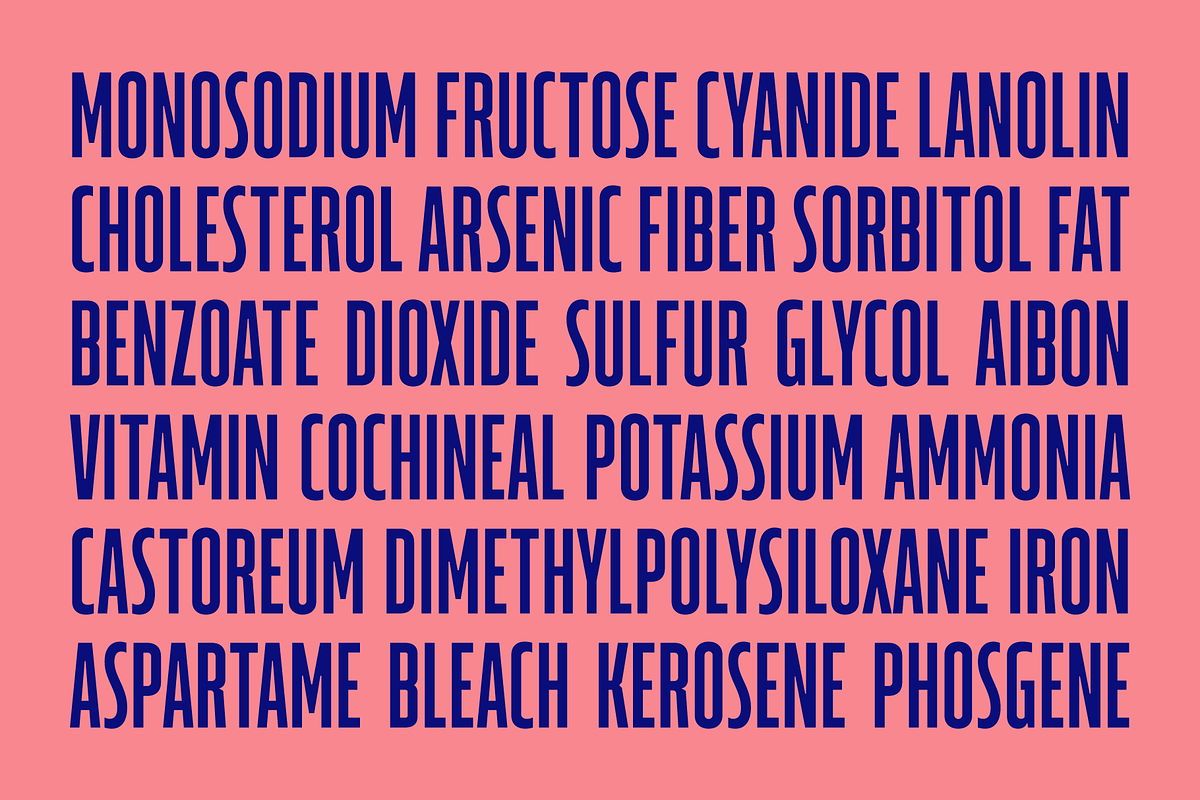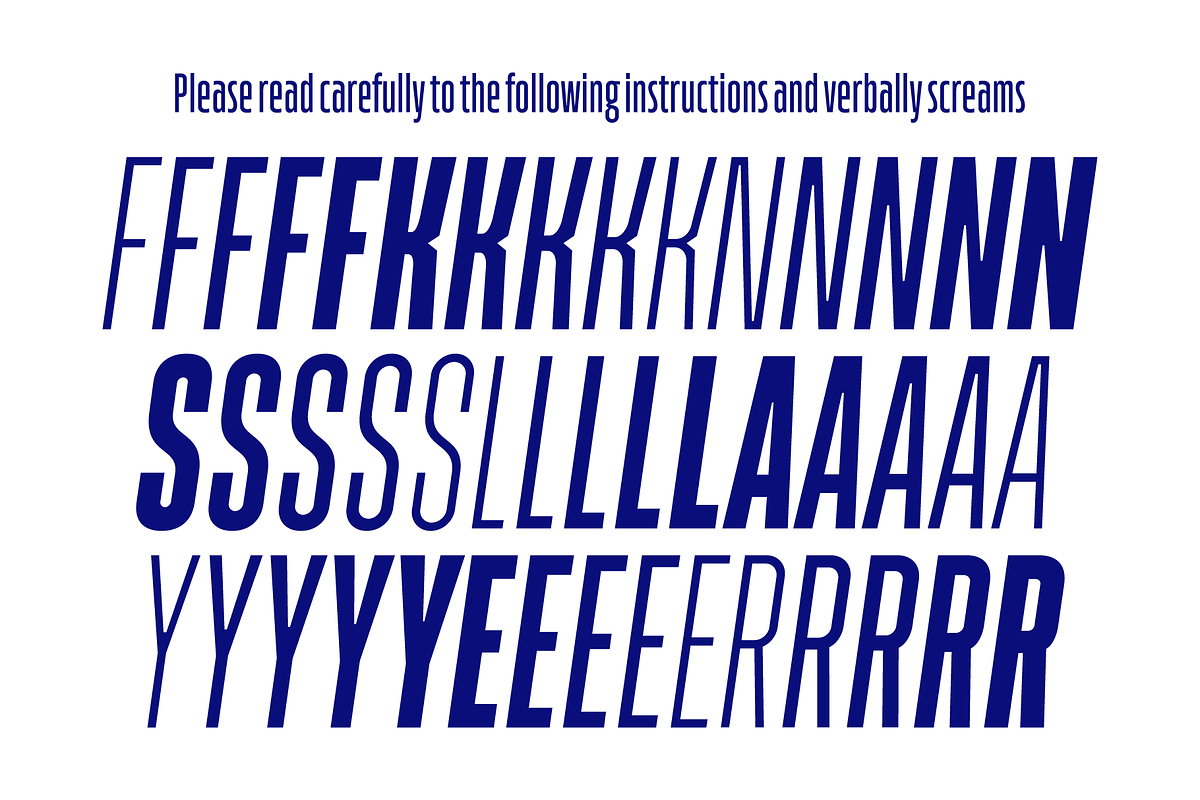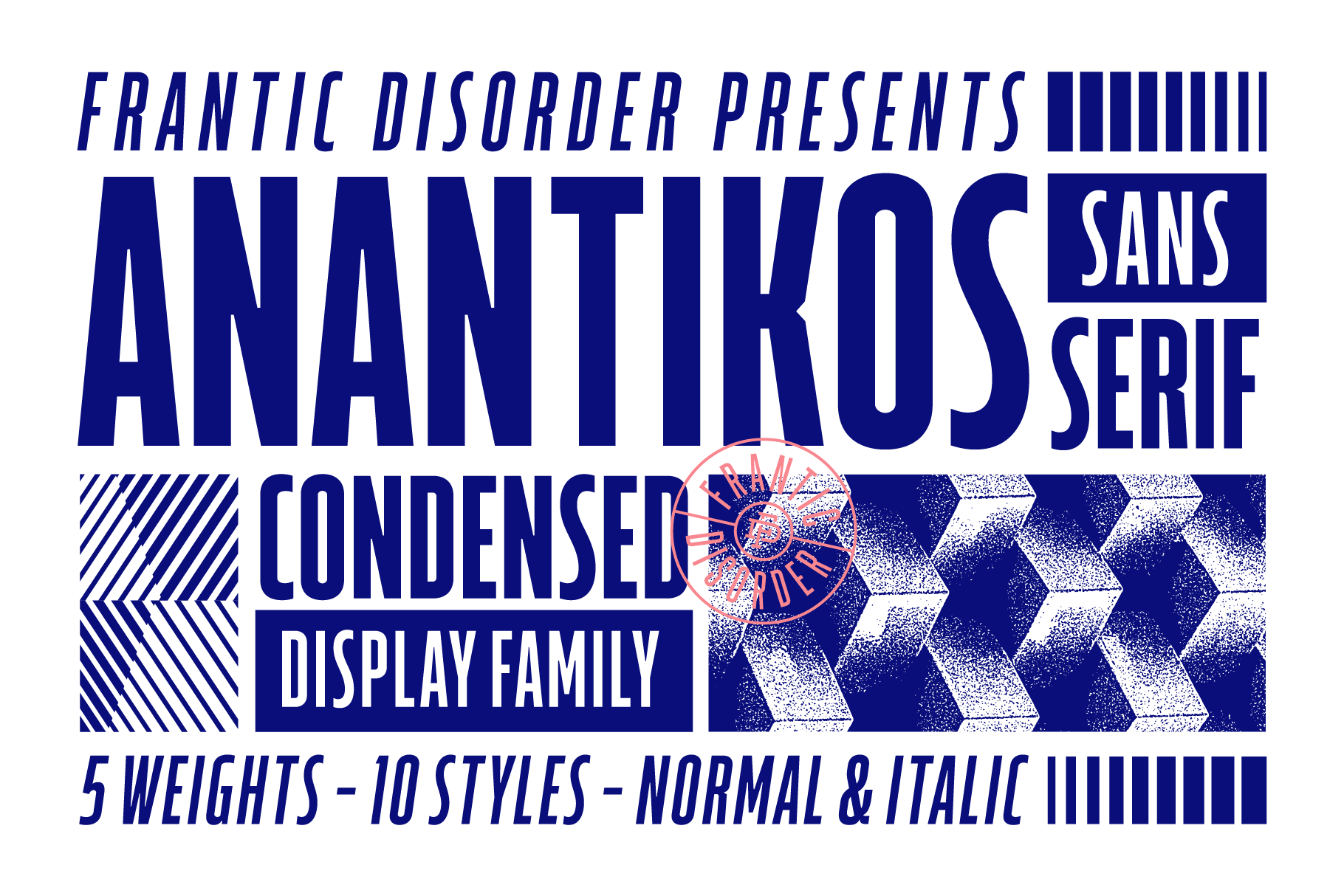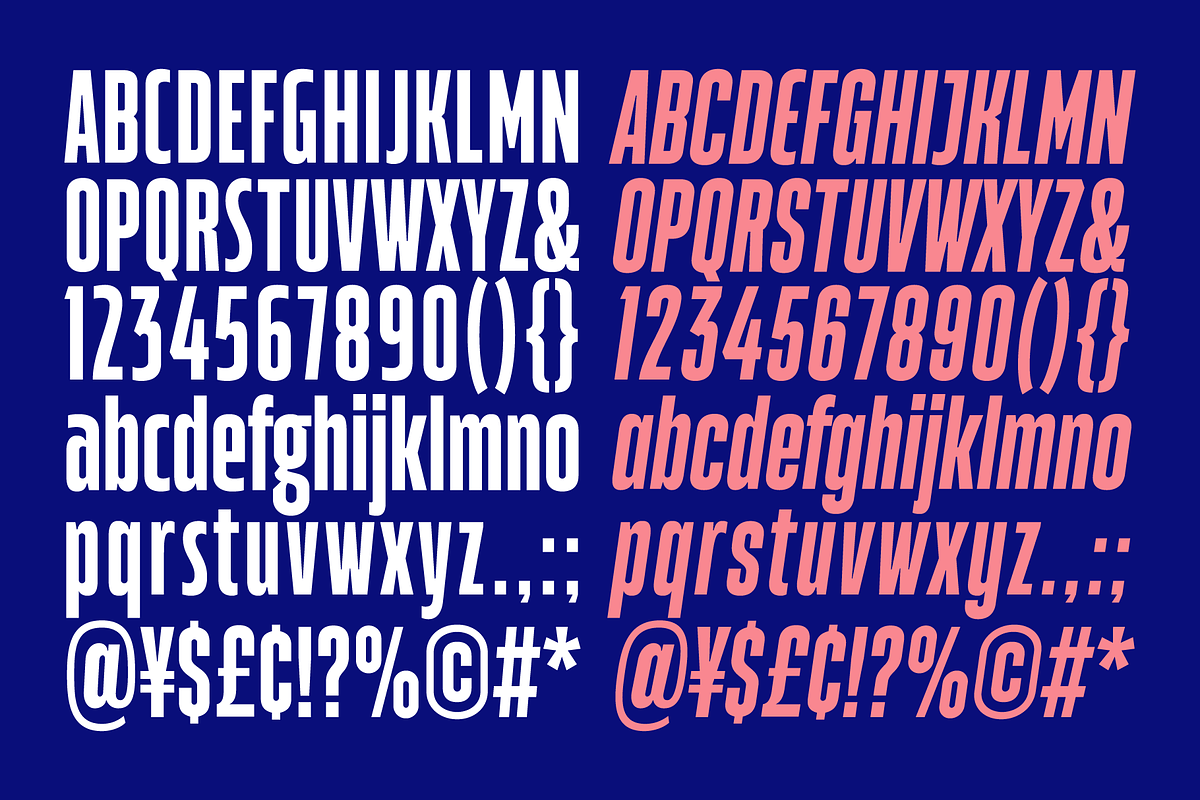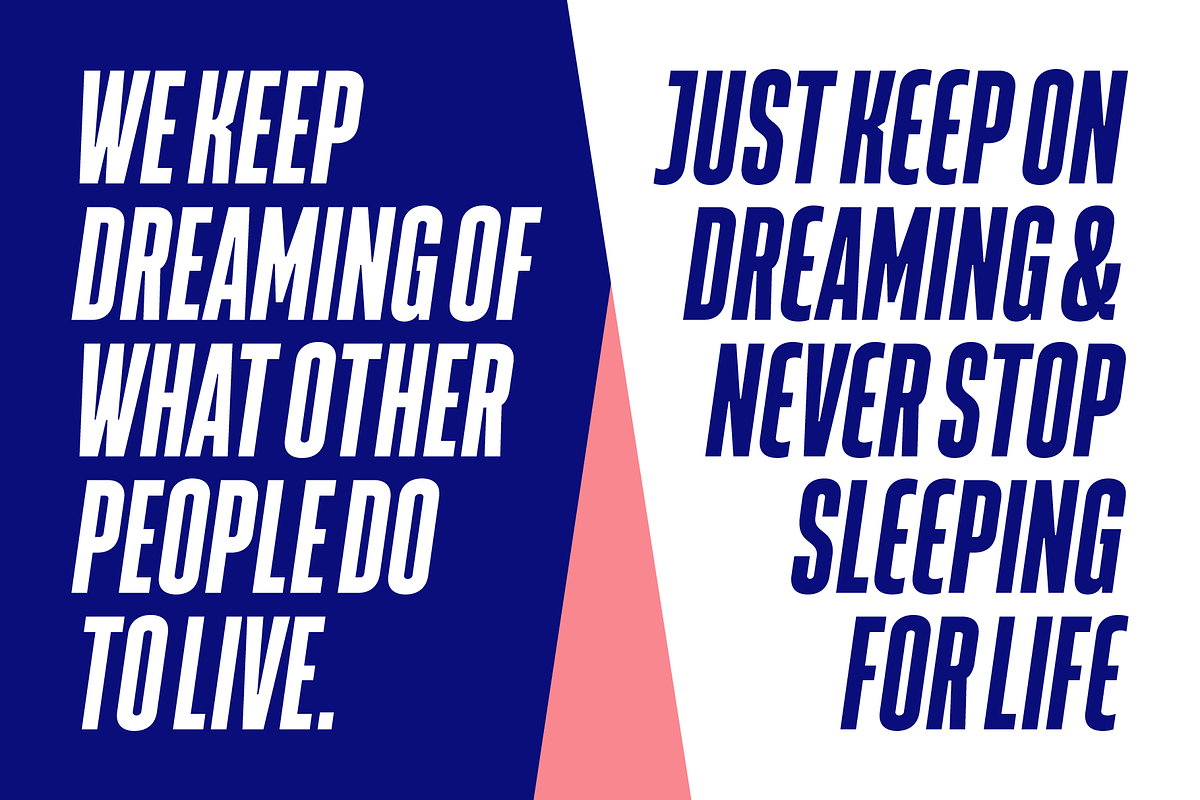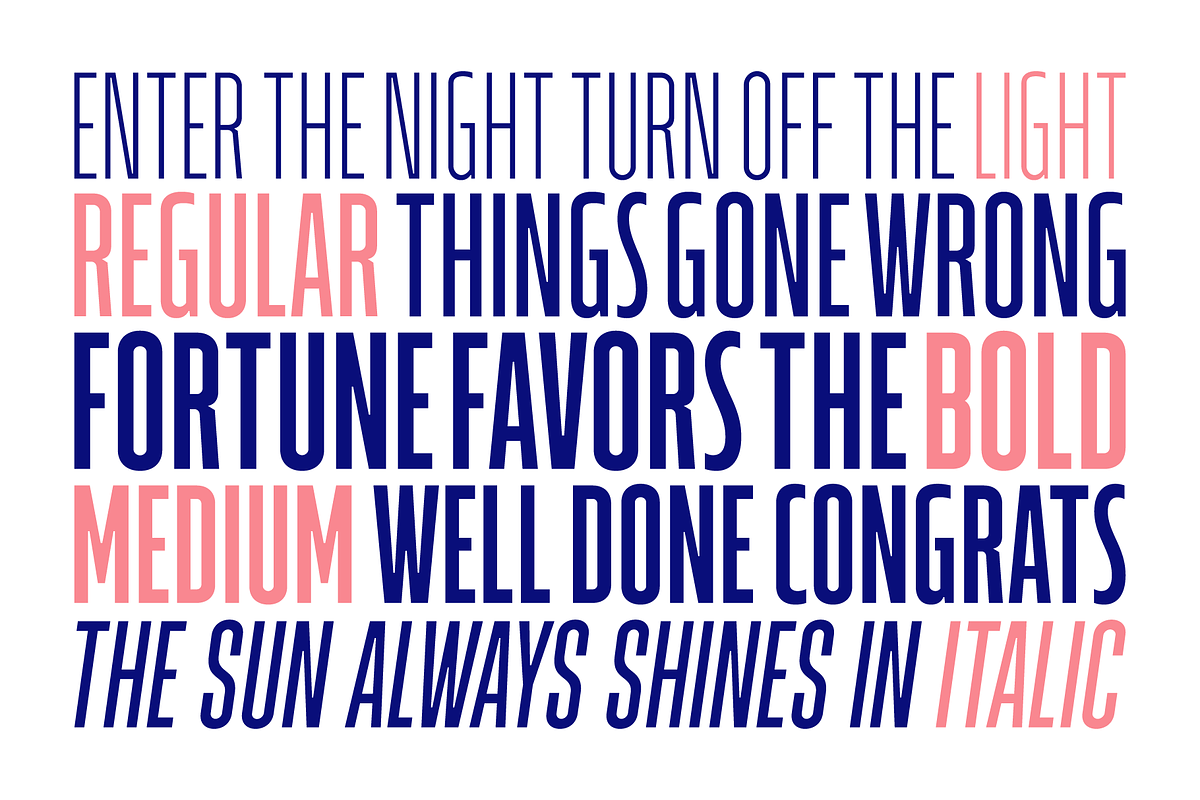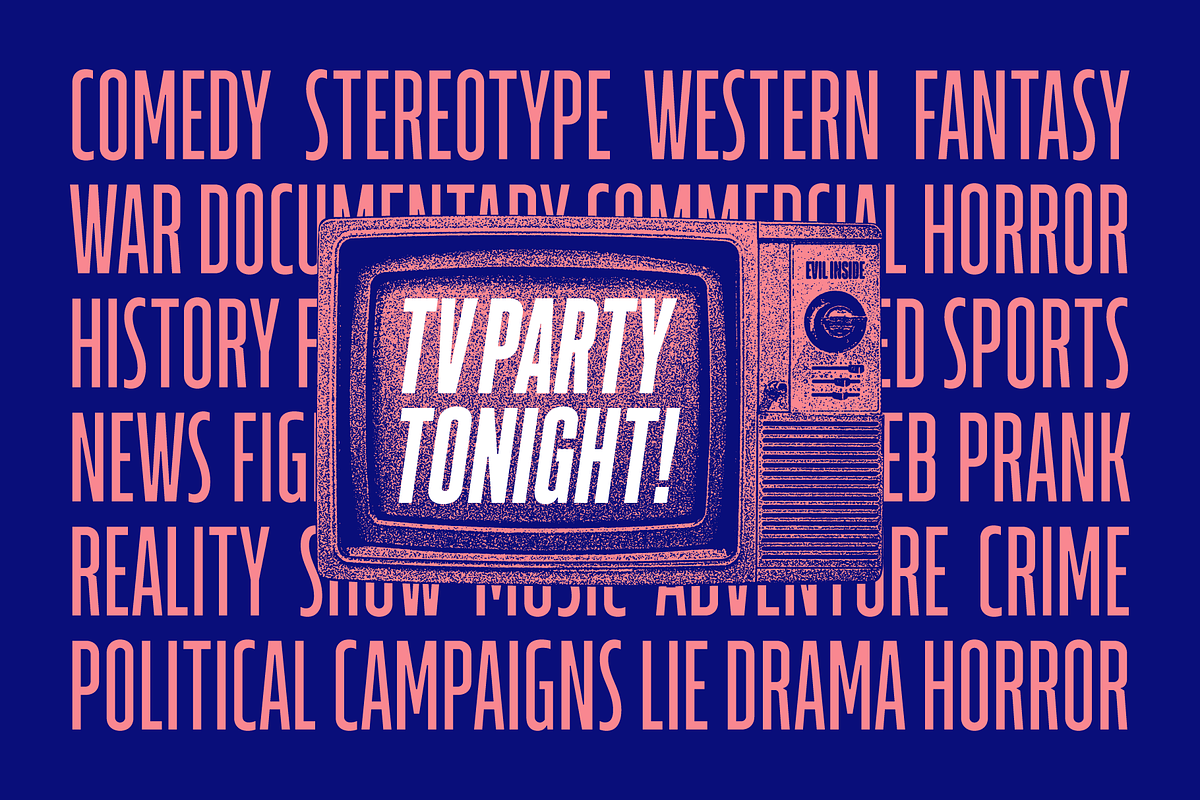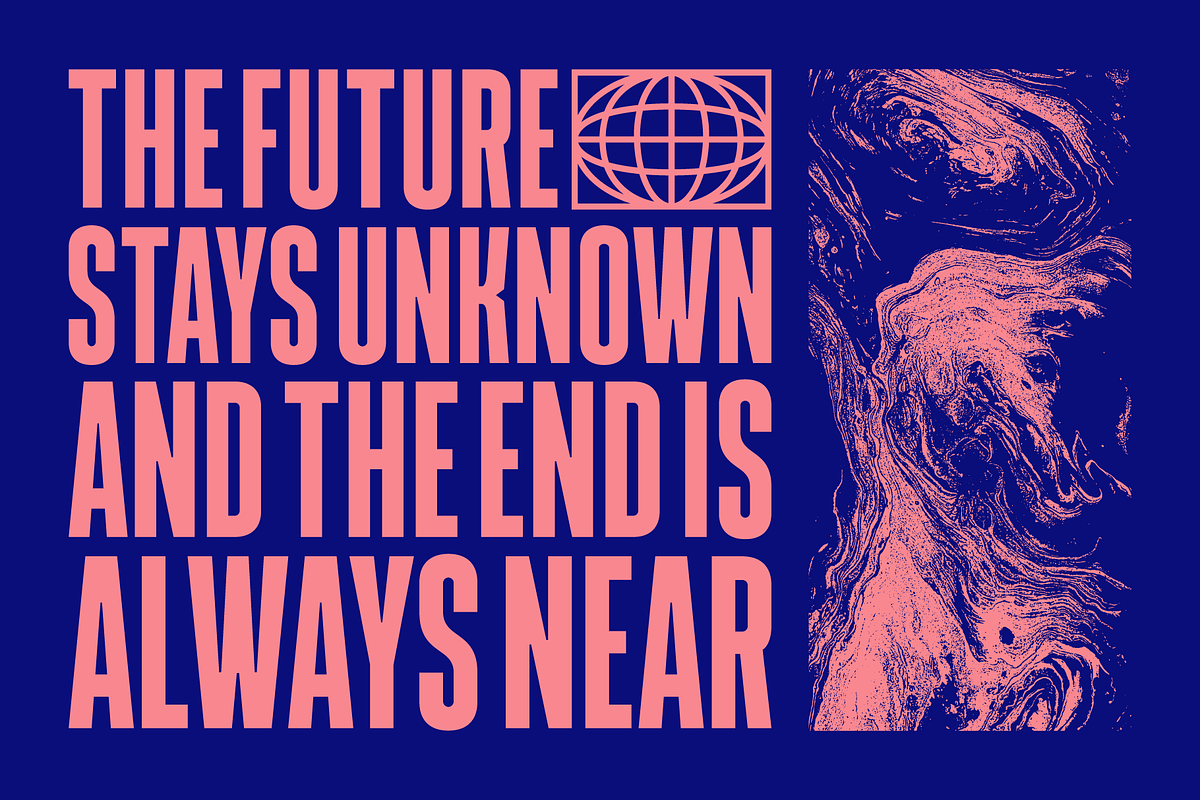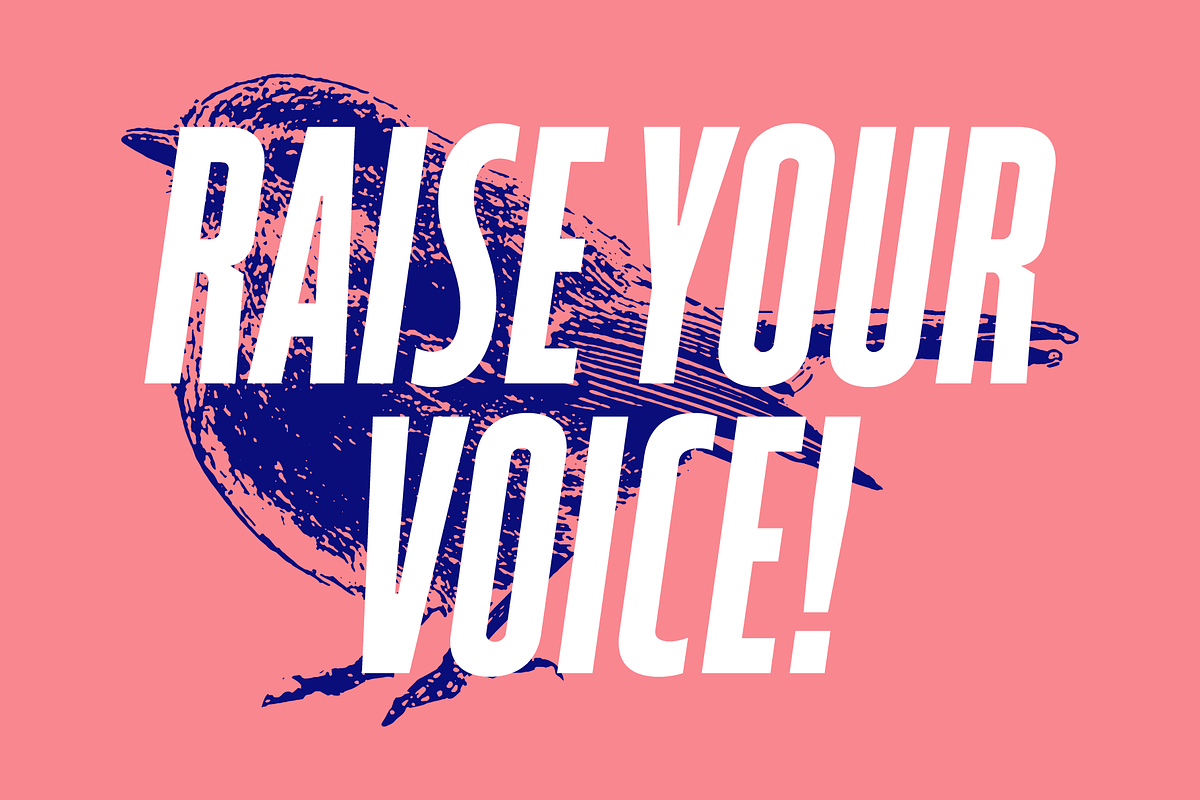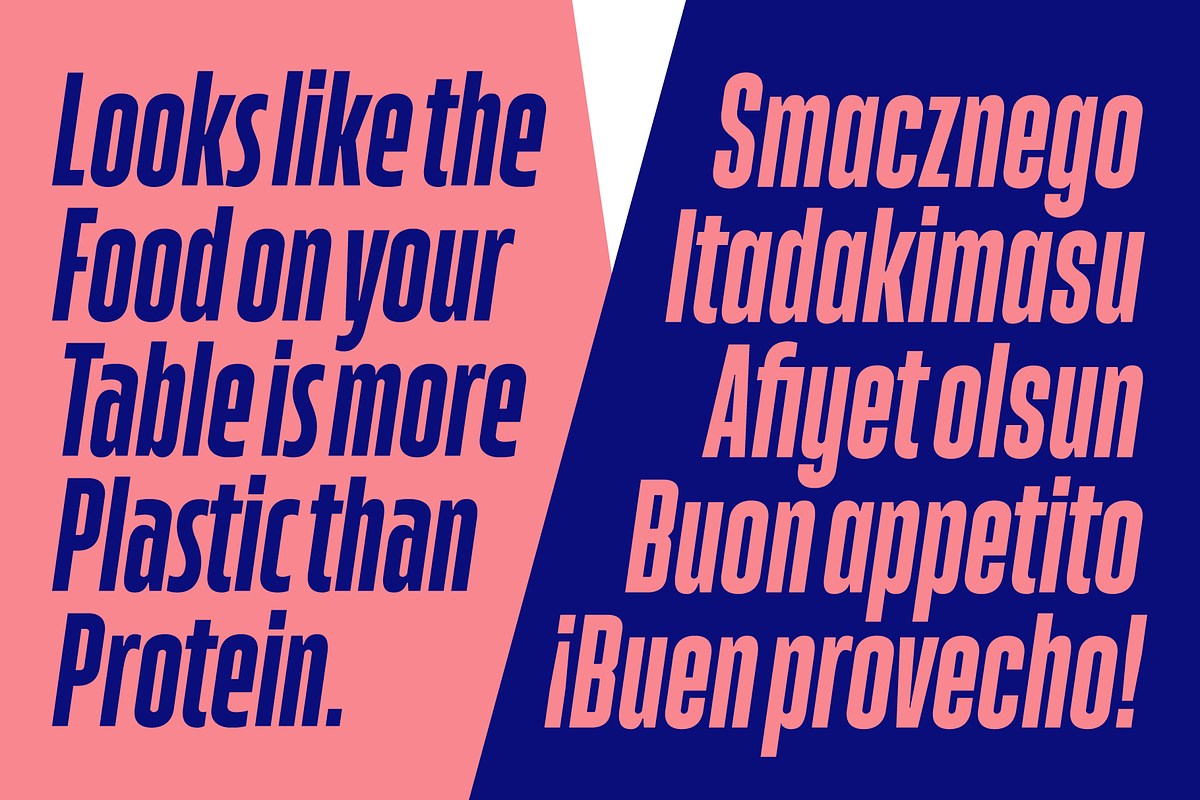
Anantikos Sans Font
Anantikos Sans is a condensed display font that blends modern and classic styles with tight letter spacing. It includes 10 styles, featuring 5 different weights and italic versions, ranging from Light to Bold. Ideal for display purposes, it’s perfectly suited for headings, branding, logos, posters, and more.